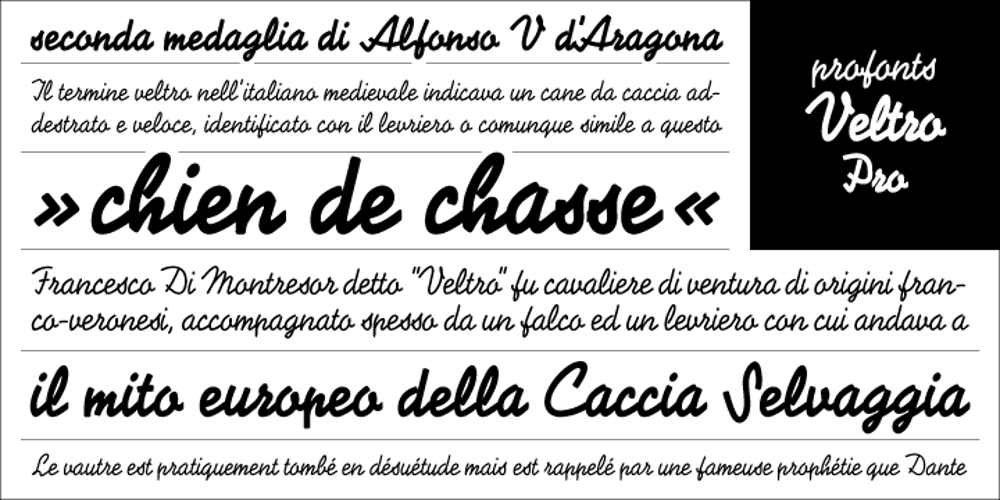
Veltro
Veltro font
Veltro Font Family was designed by Ralph M. Unger, Richard Nebiolo and published by profonts. Veltro contains 2 styles and family package options. Veltro was originally designed in 1931 for Nebiolo in Torino. The typeface has been redesigned, digitized, completed and expanded as OpenType Pro in the profonts studio. Both styles cover the complete character set for Western and Eastern Europe.